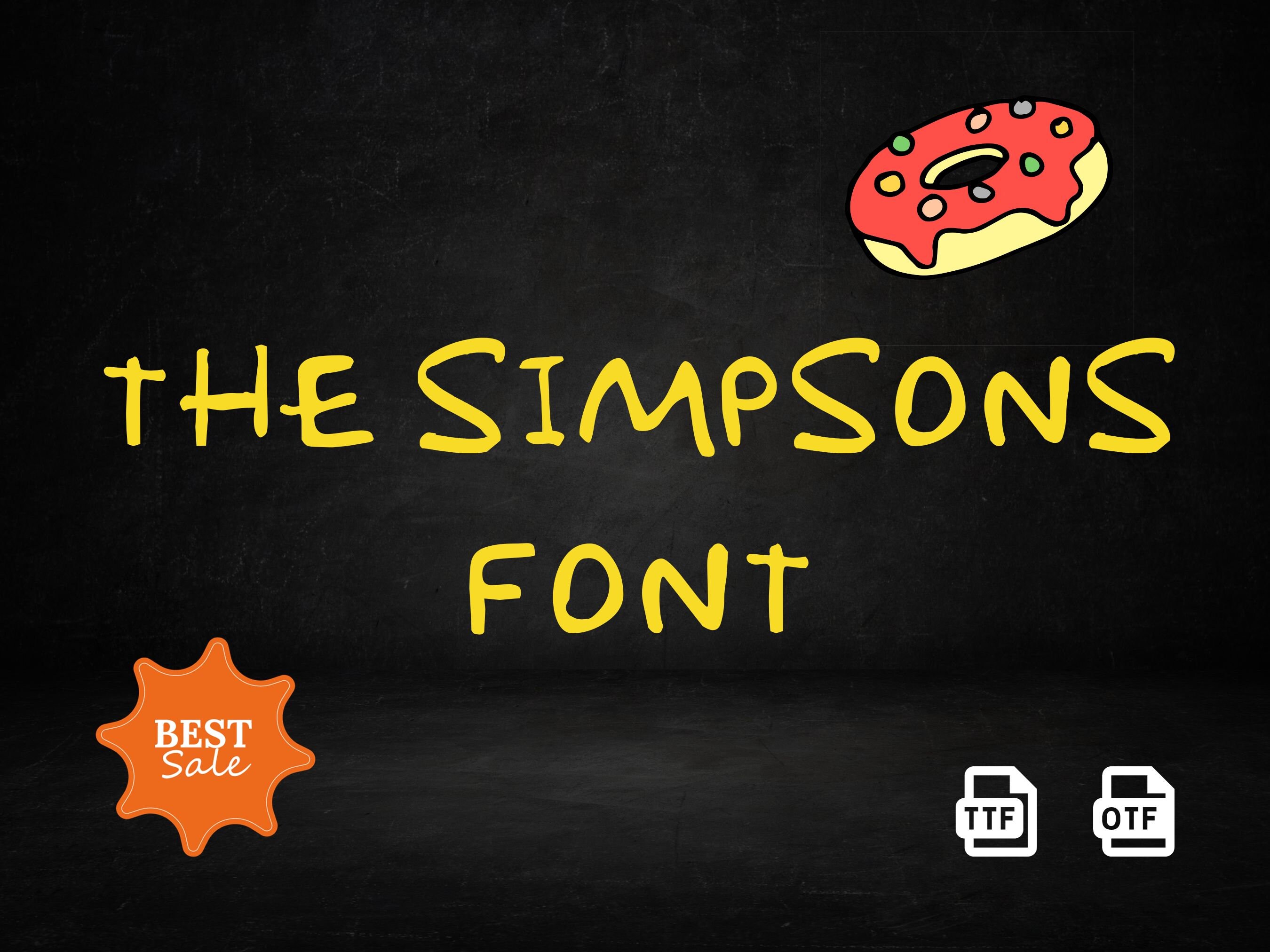
The official colors of The Simpsons are black and yellow. The Simpsons logo colors represent security and happiness. The Simpsons' color palette has been the same since 1989.
Changes were made to smoothen out the curves and make them appear more "ink" like. This update features completely redrawn glyphs, kerning, basic/extended latin, European accents, and Cyrillic characters. Use Simpsonfont in a poster, game, or kid's book.
This text includes letters, numbers 123, and punctuation! A comic book style font, great for emulating the dynamic text seen in Simpsons episodes or promotional material.